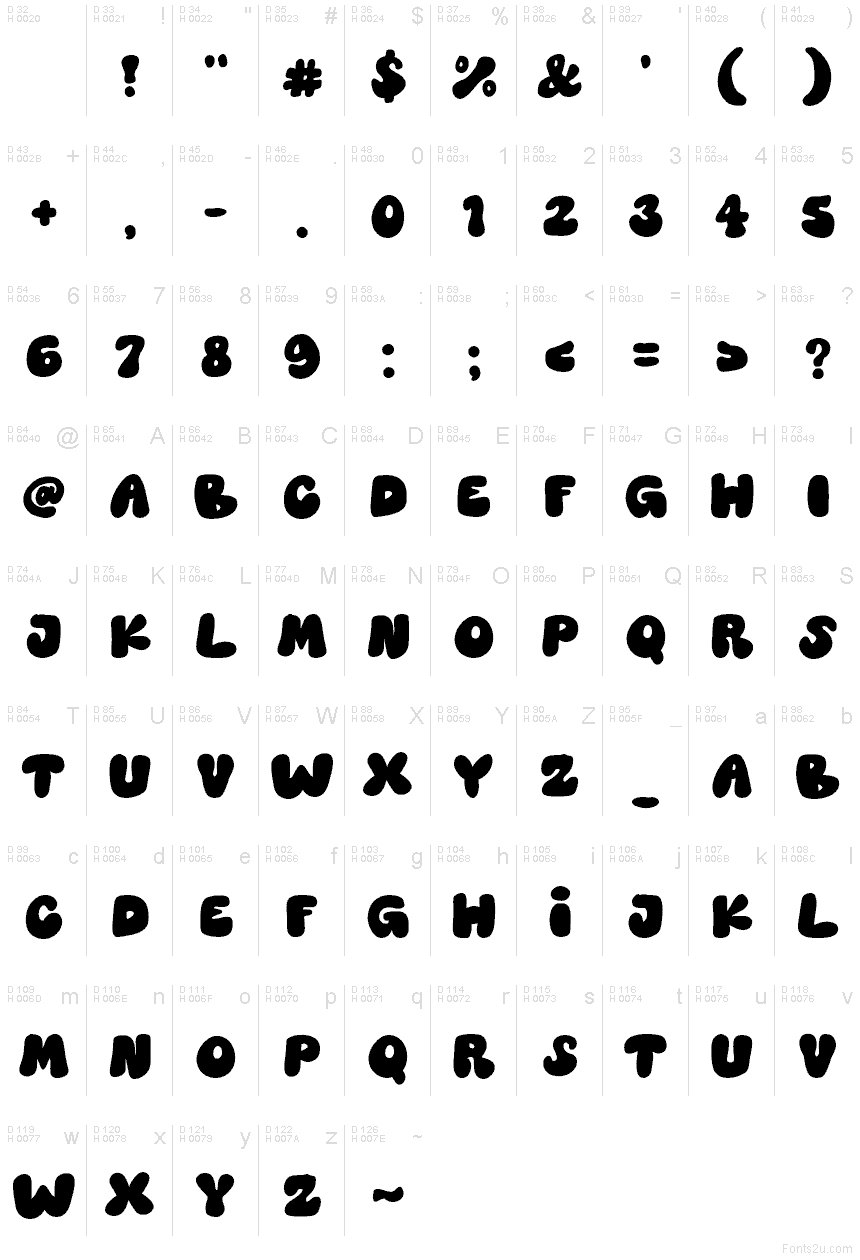
Rolling Flow
Rolling Flow font by Origin Type is a free bold cartoon display font. It stands out with puffy, balloon-like shapes and ultra-smooth curves that feel squishy to the eye. The heavy, even strokes create a chewy rhythm, while the slightly bouncy posture adds lift without turning messy—so headlines pop and still read clean at a glance.
Using Rolling Flow, playful projects snap into focus: kids’ posters, birthday invitations, toy packaging, ice cream menus, festival signage, and YouTube thumbnails. The generous counters and rounded terminals hold color beautifully on print or screen. For a simple pairing, set subheads in a clean grotesk sans and give this free font roomy line spacing to let those bubbly forms breathe.